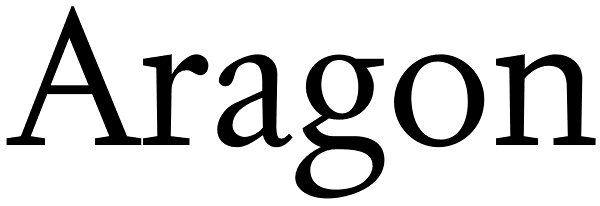
Aragon
Re-introducing the classic mid-1500s Garamond forms for the twenty-first century is never an easy task. But Hans van Maanen makes a fine attempt at just that by remodeling the traditional shapes through a modern lens with stunning results. Aragon is...